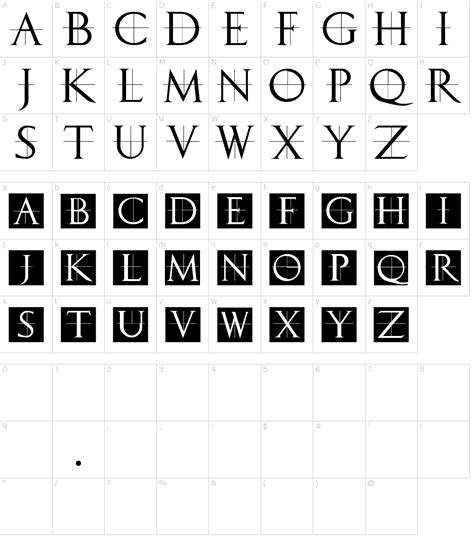
The Roman Font: A Timeless Classic
Hey guys! Today, we’re diving deep into the world of typography to talk about something truly foundational: the Roman font . You know, those elegant, classic letters you see everywhere from ancient inscriptions to modern-day books? We’re not just talking about pretty letters here; we’re exploring the history, the impact, and why this style of typeface remains so darn relevant. So, grab your favorite beverage, get comfy, and let’s unravel the enduring appeal of the Roman font.
A Walk Through History: From Ancient Rome to Your Screen
The story of the Roman font begins, unsurprisingly, in ancient Rome. Think of those monumental stone inscriptions that have survived millennia – the chiseled letters on triumphal arches and historical markers. These weren’t just functional; they were designed to be grand, legible, and enduring. The early forms, often referred to as ‘capitals’ or ‘majuscules,’ were characterized by their straight lines, precise curves, and the distinctive serifs (those little decorative strokes at the ends of letterforms) that helped define their shapes and made them stand out against the stone. These were the OG Roman fonts, the ancestors of everything we use today. It’s pretty mind-blowing to think that the letters gracing the Colosseum or Trajan’s Column share a lineage with the text on your laptop screen. This historical weight gives Roman fonts an inherent sense of authority and tradition. When you see a Roman-style font, there’s an almost subconscious recognition of history, stability, and timelessness. It’s a visual cue that tells you something is established, reliable, and has stood the test of time. This is a huge part of why certain brands and publications opt for Roman fonts – they want to convey that same sense of legacy and trust. The development continued through the Middle Ages with various script styles, but it was during the Renaissance that the Roman form really began to take shape as we recognize it today. Printers like Nicolas Jenson in the 15th century were instrumental in translating these classical letterforms into movable type. They studied the Roman inscriptions and Carolingian minuscules, refining them into what became known as ‘Old Style’ or ‘Venetian’ Romans. These fonts featured more rounded forms, subtle variations in stroke width (contrast), and a more organic, hand-drawn feel. They were designed for readability on the printed page, a crucial innovation as books became more accessible. Fast forward to the 18th century, and you get the ‘Transitional’ and ‘Modern’ Roman styles, like those designed by John Baskerville and Giambattista Bodoni , respectively. These introduced even greater contrast between thick and thin strokes, sharper serifs, and a more geometric, precise appearance. They were, in a way, a reflection of the Enlightenment’s emphasis on reason, order, and clarity. The journey from chiseled stone to metal type, and finally to digital pixels, is a testament to the adaptability and enduring aesthetic principles of the Roman font. It’s a style that has constantly evolved while retaining its core identity, making it a cornerstone of Western typography.
The Anatomy of a Roman Font: More Than Just Letters
So, what actually makes a font ‘Roman’? It’s not just a random collection of letters, guys. There are specific characteristics that define this superfamily of typefaces. The most prominent feature is the serif . These are the small lines or strokes attached to the end of the larger strokes in a letter. Think of the little feet on a capital ’T’ or the flicks on the bottom of an ‘L’. These aren’t just decorative; historically, they originated from the way stonemasons finished their strokes or how quill pens naturally tapered. Serifs help guide the eye along the line of text, improving readability, especially in long blocks of print. They create a visual baseline and a sense of connection between letters. Then there’s the stroke contrast . In most Roman fonts, you’ll notice a variation in the thickness of the strokes that make up the letters. For example, the vertical stem of a ‘P’ might be thicker than the curve. This contrast, which varies greatly between different Roman sub-styles (think subtle in Old Style, dramatic in Modern), adds visual interest and personality. We also see specific stress patterns, particularly in curved letters like ‘O’ or ‘C’. The stress indicates the direction of the thickest part of the stroke, often tilting slightly to the left in older styles. The ascenders (parts of letters like ‘h’, ‘k’, ‘l’ that rise above the main body) and descenders (parts of letters like ‘p’, ‘q’, ‘y’ that fall below the baseline) are also key. Their proportions and shapes contribute to the overall rhythm and texture of the text. Even the x-height – the height of the lowercase ‘x’ – plays a crucial role in how a font appears. A larger x-height generally makes a font more legible at smaller sizes. Understanding these elements helps us appreciate the craftsmanship involved in designing and choosing a Roman font. It’s the subtle interplay of serifs, contrast, and proportions that gives each Roman typeface its unique voice, whether it’s the scholarly feel of Garamond, the stately elegance of Times New Roman, or the crisp clarity of Bodoni. They all share that common DNA, rooted in the classical tradition, yet each offers a distinct personality for different applications.
Why Roman Fonts Still Rule the Roost Today
In today’s digital age, with a bazillion font options available, why do Roman fonts (also known as serif fonts) continue to be so popular? It boils down to a few key things, guys. First off, readability . For long-form reading, like novels, newspapers, and academic papers, serif fonts are often considered the gold standard. That subtle serif helps our eyes flow more smoothly from one letter to the next and across lines of text. It’s like a little visual runway for your eyeballs! Studies, though sometimes debated, often lean towards serifs being easier on the eyes for extended reading sessions, especially in print. They provide a grounded, stable feel that prevents the text from seeming to float aimlessly on the page. This makes them incredibly practical for publishing. Secondly, tradition and authority . Roman fonts carry a certain gravitas. They evoke a sense of history, reliability, and sophistication. Think about legal documents, prestigious academic journals, or classic literature – they often use serif fonts to convey a sense of seriousness and established knowledge. When a brand uses a Roman font for its logo or primary typeface, it’s often aiming to project an image of trustworthiness, heritage, and quality. It’s a visual shortcut to saying, “We’re established, we’re credible, and we’re here to stay.” Thirdly, versatility . While often associated with formal contexts, Roman fonts come in a huge variety of styles. You have the old-style serifs that feel warm and approachable, transitional serifs that are balanced and clear, and modern serifs that can be bold and dramatic. This means there’s likely a Roman font suitable for almost any design need, from elegant wedding invitations to robust website body text. They can be classic and understated, or they can make a strong, fashionable statement. Finally, there’s the aesthetic appeal. Let’s be honest, many Roman fonts are just plain beautiful! They possess an elegance and a level of detail that sans-serif fonts (the ones without serifs) sometimes lack. The interplay of thick and thin strokes, the carefully crafted serifs – it all adds up to a rich visual texture that can make text genuinely pleasing to look at. So, even as new font styles emerge, the Roman font’s blend of readability, historical weight, stylistic range, and inherent beauty ensures its place in the designer’s toolkit and our everyday visual landscape. They’re the reliable workhorses and the elegant showstoppers all rolled into one!
Choosing the Right Roman Font for Your Project
Okay, so you’re convinced that Roman fonts are awesome, and you want to use one. But with so many options, how do you pick the right one? It’s not just about grabbing the first serif font you see, guys. You gotta think about the vibe you’re going for and, crucially, where it’s going to be used. First things first: Consider the context . Is this for a book that’s hundreds of pages long? A website’s body text? A fancy invitation? A bold headline? For long-form reading, like novels or articles, you’ll want a font that’s highly legible and has a comfortable x-height and moderate contrast. Think of tried-and-true options like Garamond , Minion , or even Times New Roman (though the latter can sometimes feel a bit dated if not used carefully). These fonts are designed to be read easily for hours. For headlines or display text, you can be a bit more adventurous. You might opt for a font with more dramatic contrast, like Bodoni or Didot , which have a very sharp, elegant, and high-fashion feel. Or perhaps a robust slab serif (a type of Roman with thick, block-like serifs) for a more sturdy, retro vibe. Next, think about the personality . What message do you want your text to convey? Do you need something traditional and authoritative? Look at fonts like Caslon or Baskerville , which have a historical feel but remain highly readable. Are you aiming for modern elegance? Trajan Pro (though technically an all-caps font based on ancient inscriptions) or Playfair Display offer a sophisticated, contemporary take on Roman forms. Do you want something friendly and slightly whimsical? Some newer serif designs incorporate softer edges or unique flourishes. Crucially, test it out! Don’t just look at the font in a specimen sheet. Set some actual text – a paragraph, a headline – in the font at the intended size. How does it look on screen? How does it print? Does it feel right? Check the legibility at small sizes and the impact at large sizes. Pay attention to the spacing (kerning and tracking) – some fonts look much better with a little tweaking. And don’t forget about pairing . Often, a Roman font is paired with a sans-serif font. A common strategy is to use a serif for body text (for readability) and a sans-serif for headings (for impact and contrast), or vice-versa. Ensure the chosen fonts complement each other in terms of weight, style, and overall feeling. Choosing a Roman font is a balancing act between aesthetic appeal, historical context, and practical legibility. By considering these factors, you can select a typeface that not only looks great but also effectively serves its purpose and enhances your message.
The Enduring Legacy
So there you have it, folks! The Roman font , from its ancient origins to its digital present, is more than just a way to display text. It’s a carrier of history, a symbol of reliability, and a cornerstone of readable and beautiful design. Whether you’re designing a website, writing a novel, or just appreciating the text around you, take a moment to notice the Roman fonts. They’ve shaped how we communicate for centuries, and they’re not going anywhere anytime soon. Pretty cool, right? Keep an eye out for them – you’ll start seeing them everywhere now! Remember, the best designs often have roots in the classics, and the Roman font is a perfect example of that timeless appeal. It’s a testament to good design principles that transcend fads and technologies. It’s the font equivalent of a little black dress or a perfectly tailored suit – always appropriate, always elegant, and always effective. Cheers to the Roman font!